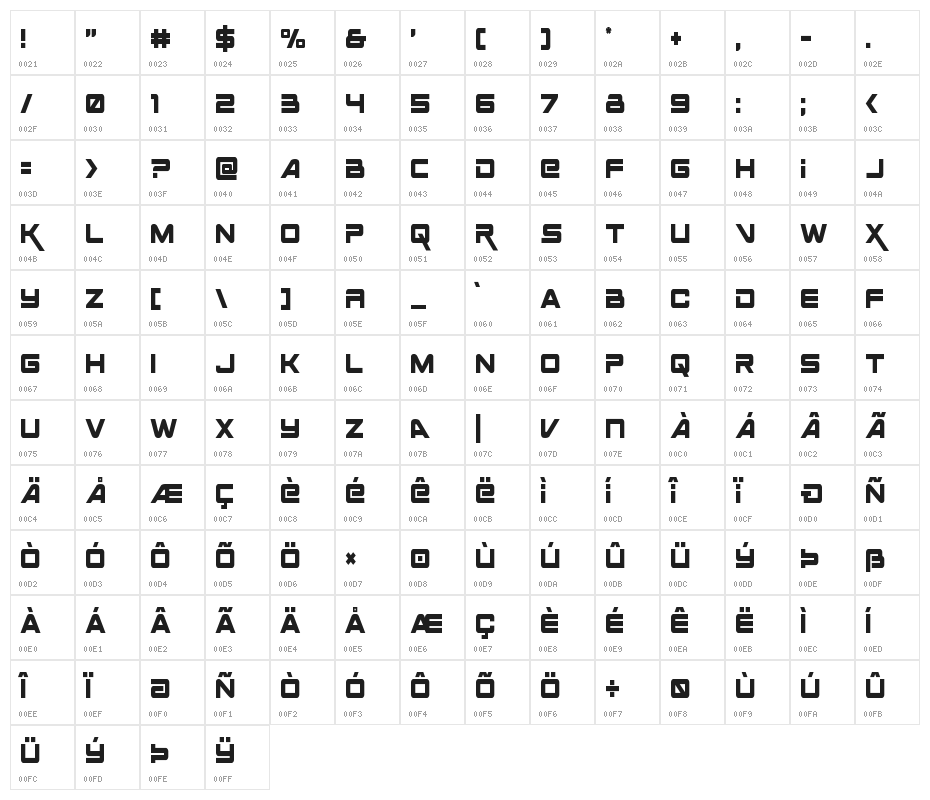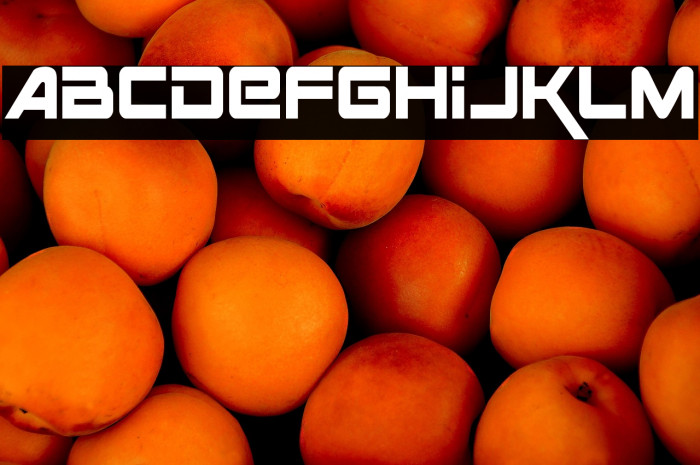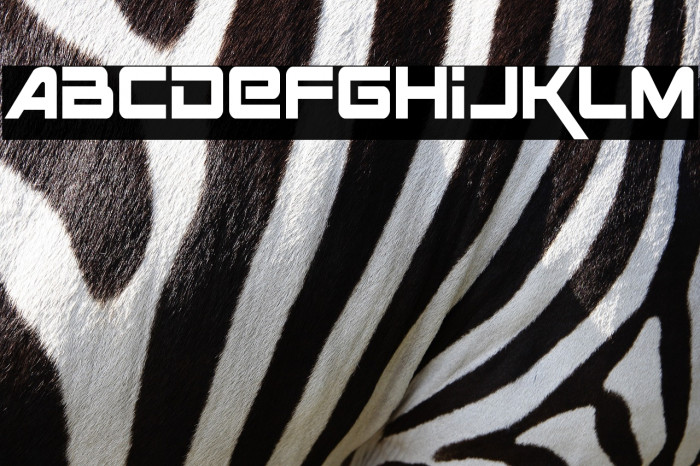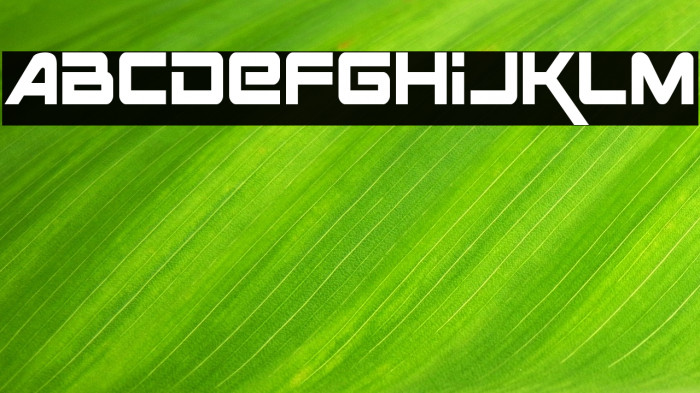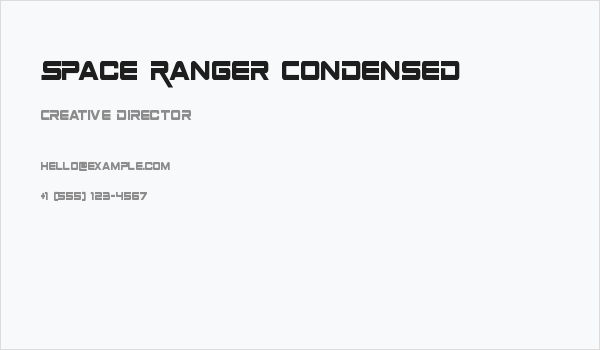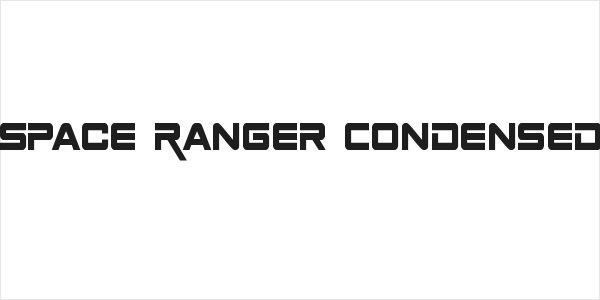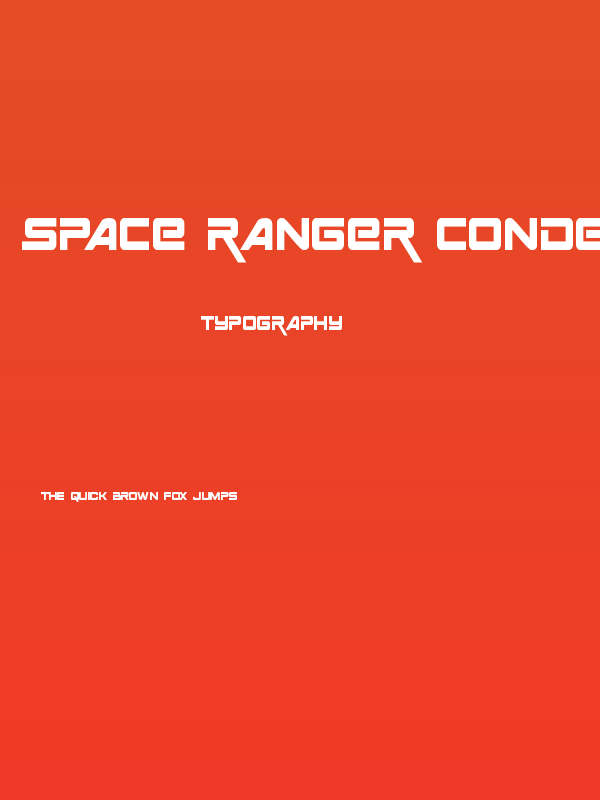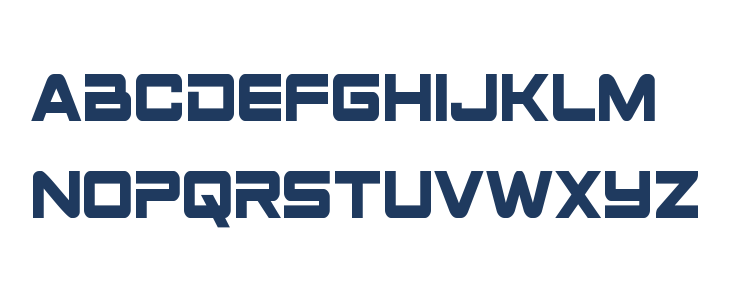
Space Ranger Condensed Font
Space Ranger Condensed Description
This font features a futuristic and angular design, characterized by sharp edges and geometric shapes. The uppercase letters are bold and striking, with a condensed width that gives a compact appearance. The lowercase letters maintain the same angular style, ensuring consistency throughout the typeface. Numbers and special characters follow the same design principles, making them easily recognizable and visually cohesive. The font's unique style is reminiscent of science fiction themes, making it ideal for projects that require a modern and tech-oriented look.
| Proposed Projects | Ideal for sci-fi themed posters, video game titles, technology branding, and futuristic design projects. |